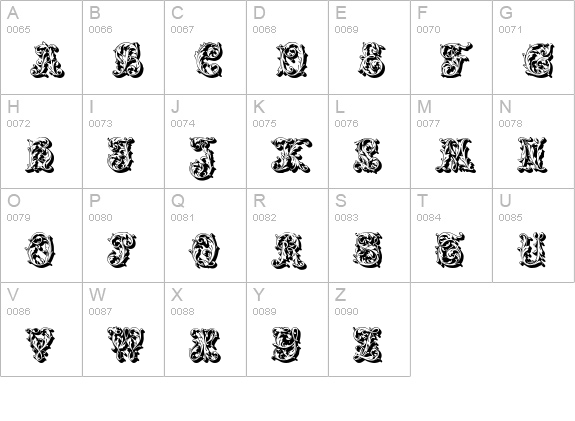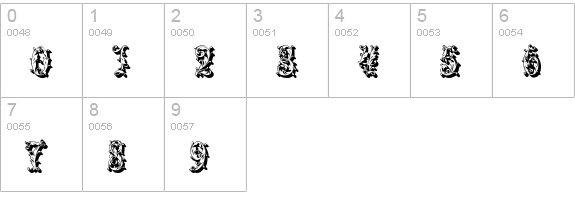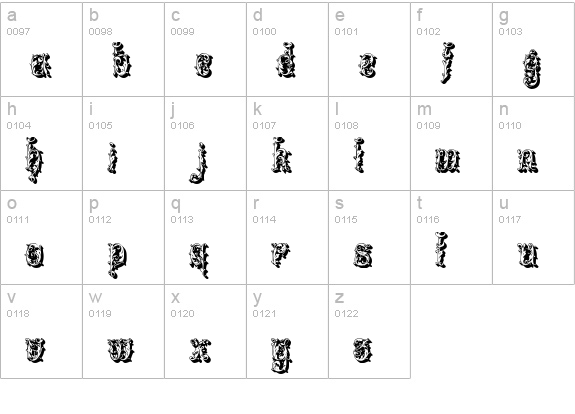
Leafyshade Font Details
Introducing Leafyshade, a captivating and versatile font that will add a touch of elegance and sophistication to any project. This exquisite typeface embodies the perfect balance between modernity and classic beauty, making it an ideal choice for a wide range of design applications. Leafyshade features intricately crafted letterforms that exude a sense of organic grace and natural charm. Its flowing curves and delicate strokes create a harmonious rhythm, inviting the eye to explore every intricate detail. This font effortlessly captures the essence of nature, evoking images of lush foliage and dappled sunlight filtering through the trees. With its wide range of weights and styles, Leafyshade offers endless possibilities for creative expression. Whether you're designing a logo, branding materials, invitations, or editorial layouts, this font will seamlessly adapt to your vision and elevate your designs to new heights. One of the most remarkable aspects of Leafyshade is that it is freely available for download at FontsMarket.com. This means that you can effortlessly access this exceptional font without any cost, allowing you to enhance your projects without breaking the bank. FontsMarket.com is renowned for its extensive collection of high-quality fonts, and Leafyshade is no exception. Experience the beauty and versatility of Leafyshade today and let its enchanting presence breathe life into your designs. Whether you're a professional designer or an aspiring creative, this font will empower you to create stunning visuals that leave a lasting impression. Download Leafyshade for free at FontsMarket.com and unlock a world of endless design possibilities.